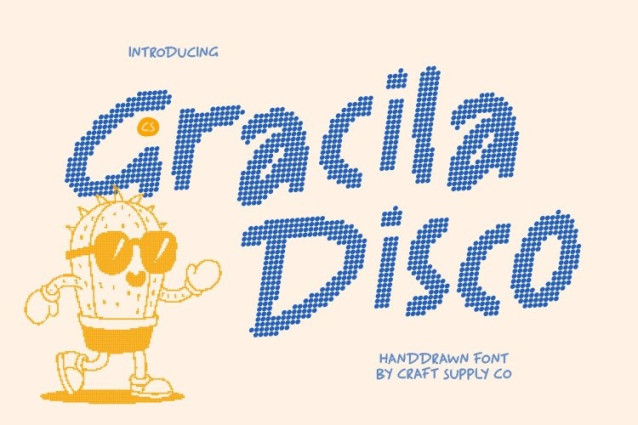
CS Gracila Disco Font This is a bold and playful handwritten display font designed to radiate youthful energy and cheerful disco vibes. Its confident strokes and expressive handwritten forms create a lively visual rhythm that feels spontaneous, fun, and full of movement. With its energetic personality, this font instantly brings excitement, creativity, and joy to any design.
Playful Letterforms with Cheerful Character
The rounded curves and informal handwritten structure give this font a bright, approachable, and youthful appearance. Each letter flows naturally, capturing the carefree spirit of casual writing while maintaining a strong visual presence. This playful rhythm makes text feel friendly, optimistic, and full of personality perfect for designs that aim to feel joyful and expressive.
Bold Strokes for Eye-Catching Impact
The bold weight of this font ensures strong visibility and instant impact. Thick, expressive strokes grab attention while preserving a warm, handcrafted feel. This balance between strength and playfulness allows the font to stand out confidently without feeling overwhelming, keeping designs fun, readable, and engaging.
Perfect for Fun, Youthful, and Creative Designs
Ideal for playful branding, posters, kids’ themes, party designs, packaging, event visuals, and social media content, this font brings a lively and cheerful tone to every layout. Whether used for bold headlines, energetic quotes, or creative storytelling, this font delivers a joyful handwritten style with vibrant disco-inspired personality.